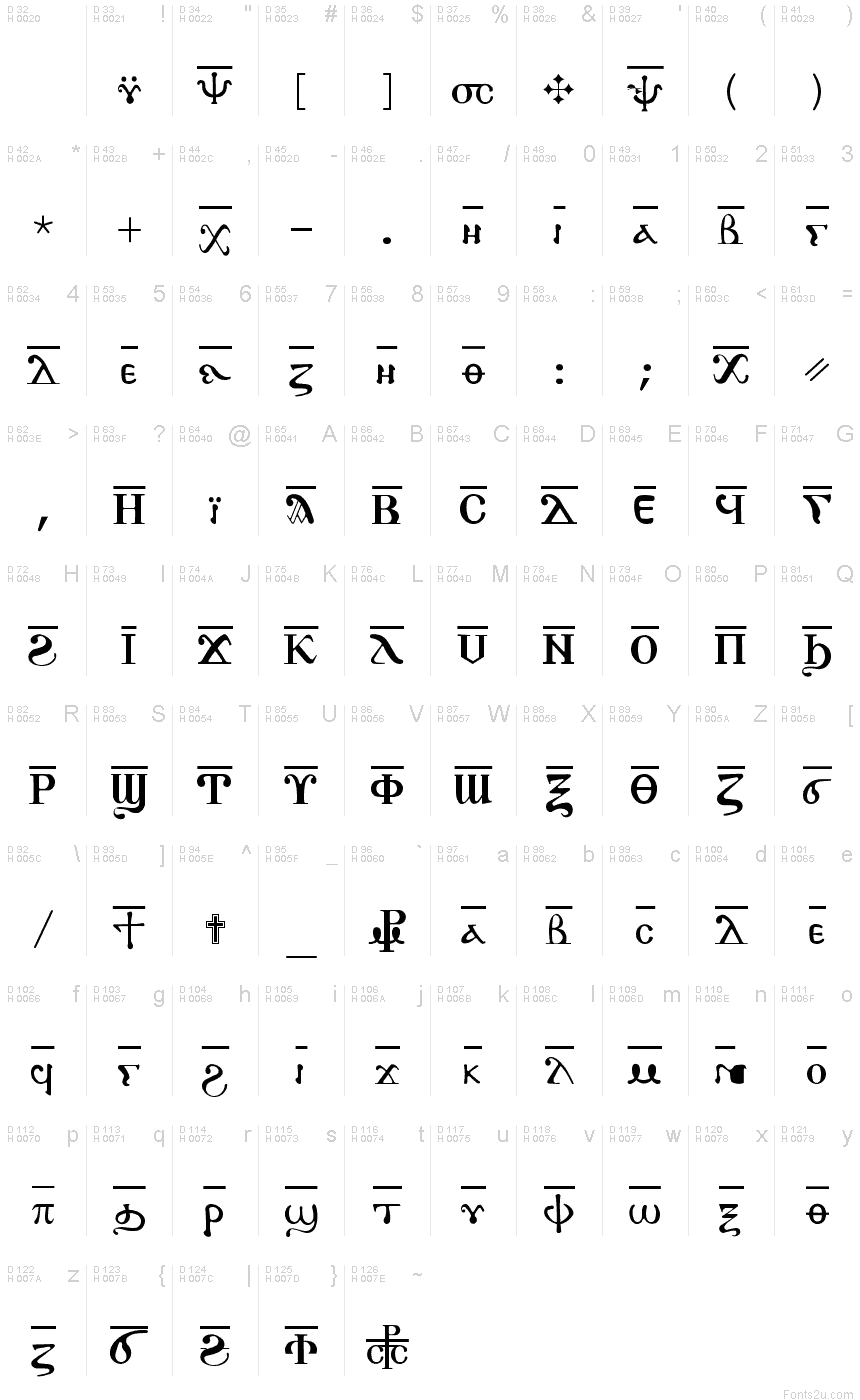
AntoniousOL OverLine by Wisam Michael is a free Greek-style display font with sweeping, inscription-like forms. A broken rule runs above the lettering, giving the design a strong architectural signature. Broad curves, sharp wedges, and changing stroke widths make each letter feel deliberately carved.
Classical mythology and ancient Mediterranean themes make a natural starting point for museum posters, book covers, and historical game graphics. The unusual silhouettes can echo columns, pottery patterns, or engraved symbols, letting the lettering become part of the illustration rather than a neutral caption.